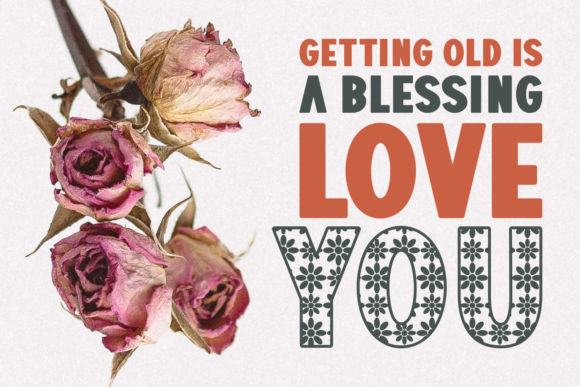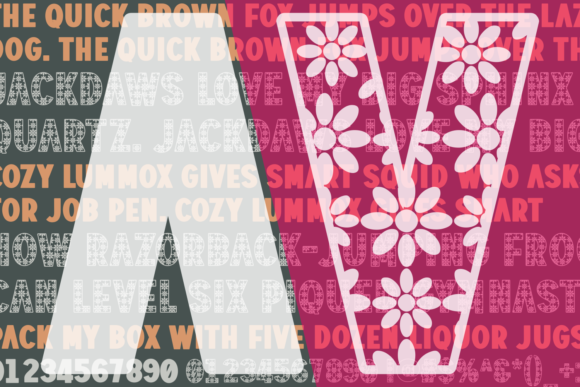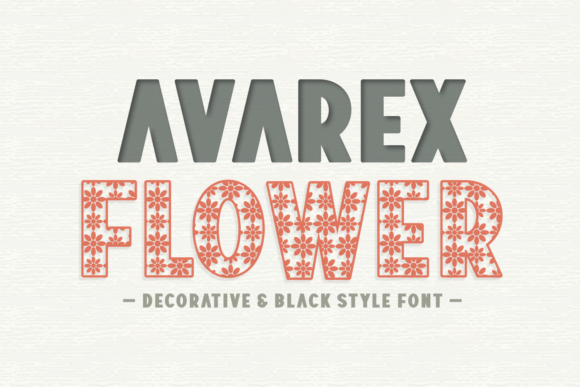
Introducing Avarex Flower Font: The Ultimate Decorative Font for Creative Designs
Are you tired of using the same old fonts in your designs? Do you want to add a touch of freshness and playfulness to your creative projects? Look no further than the Avarex Flower Font! This gorgeous and vibrant decorative font is perfect for designers and crafters who want to ignite their creativity and take their designs to the next level.
What Makes Avarex Flower Font So Special?
Avarex Flower Font features beautiful shapes that will make any design stand out. With its unique and playful typeface, this font is sure to give your designs a fresh and fun feel. Whether you’re working on a graphic design project, crafting a handmade card, or creating digital art, Avarex Flower Font is the perfect choice.
Key Features of Avarex Flower Font
- Beautiful Shapes: Avarex Flower Font features stunning shapes that will add a touch of elegance and sophistication to any design.
- Vibrant and Playful: This font is perfect for designers who want to add a pop of color and fun to their designs.
- Fresh and Fun Feel: Avarex Flower Font will give your designs a fresh and fun feel that’s sure to capture the attention of your audience.
- Perfect for Creative Projects: Whether you’re working on a graphic design project, crafting a handmade card, or creating digital art, Avarex Flower Font is the perfect choice.
How to Use Avarex Flower Font in Your Designs
Using Avarex Flower Font in your designs is easy! Here are a few tips to get you started:
- Pair it with Other Fonts: Avarex Flower Font looks great when paired with other fonts. Try pairing it with a bold font for a striking contrast.
- Use it for Headings: Avarex Flower Font is perfect for headings and titles. Use it to add a touch of elegance and sophistication to your designs.
- Add it to Your Digital Art: Avarex Flower Font is a great addition to any digital art project. Use it to add a touch of whimsy and playfulness to your art.
Why Designers and Crafters Love Avarex Flower Font
Designers and crafters love Avarex Flower Font for many reasons. Here are a few:
- Unique and Playful: Avarex Flower Font is a unique and playful font that’s sure to make any design stand out.
- Easy to Use: This font is easy to use and can be incorporated into any design project with ease.
- Versatile: Avarex Flower Font is versatile and can be used in a variety of design projects, from graphic design to digital art.
If you’re looking for a font that will add a touch of freshness and playfulness to your designs, look no further than Avarex Flower Font. With its beautiful shapes and vibrant typeface, this font is sure to ignite your creativity and take your designs to the next level. So why wait? Download Avarex Flower Font today and start creating stunning designs that will capture the attention of your audience!